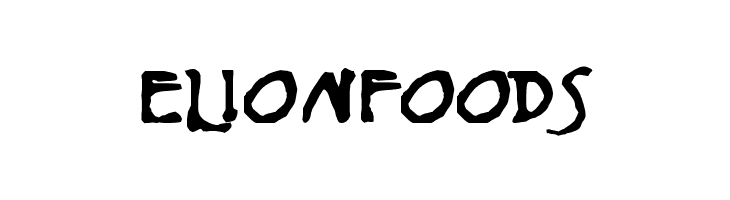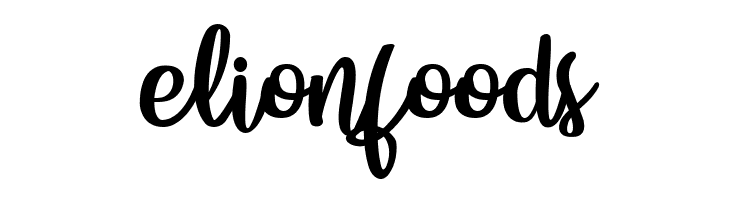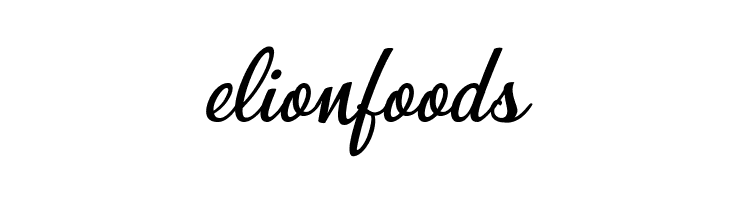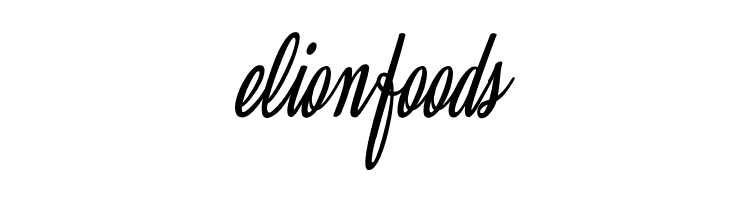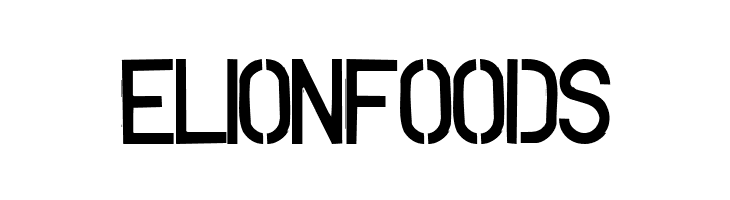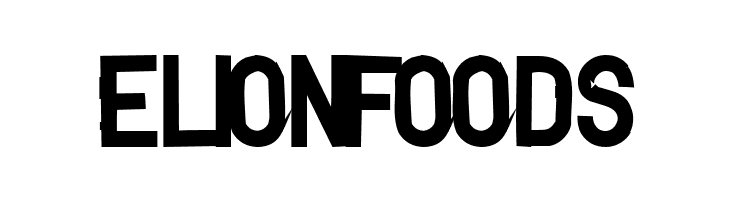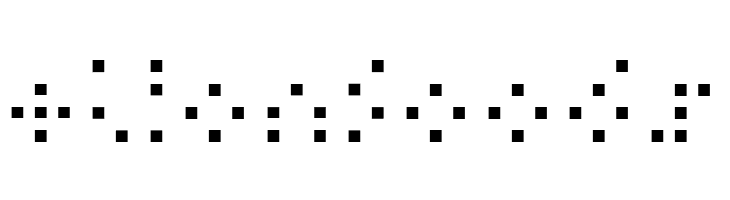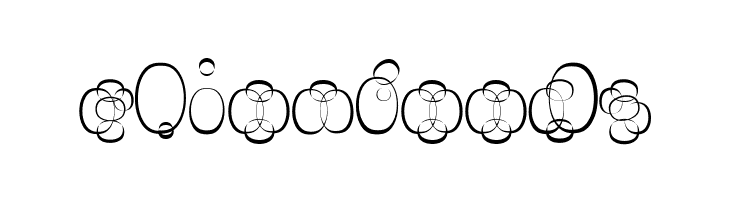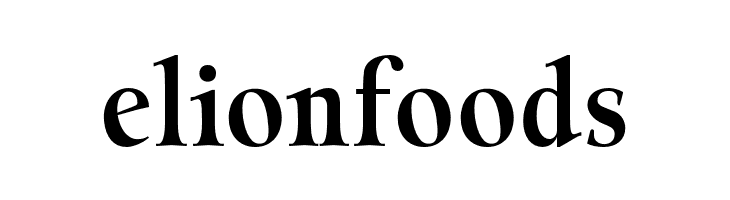
A bold, artistic font with a handcrafted, playful style.
A bold, playful script font with dynamic and flowing letterforms.
A cursive font with elegant, flowing strokes and a calligraphic style.
An elegant, flowing script font with a pronounced italic slant.
A bold, modern geometric font with sharp angles and clean lines.
A bold, modern font with sharp angles and a strong, assertive style.
A bold, chaotic font with jagged, puzzle-like characters.
A tactile writing system using raised dots for visually impaired readers.
An abstract, decorative font with overlapping circular shapes forming each character.
A bold, elegant serif font with strong, pronounced strokes.